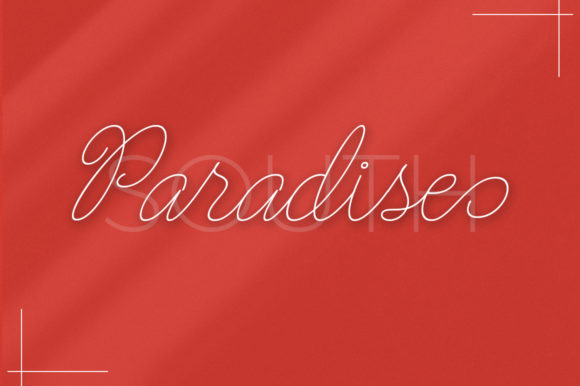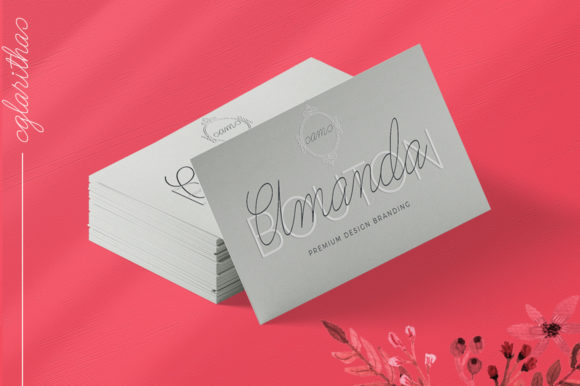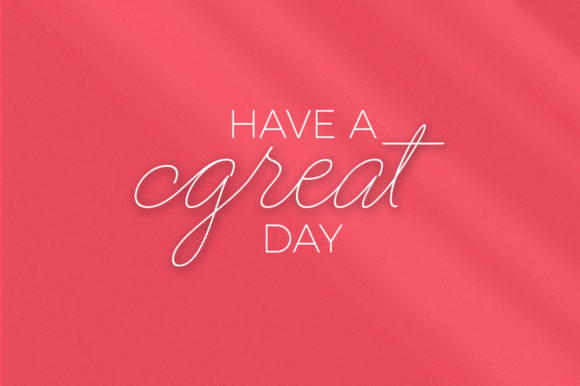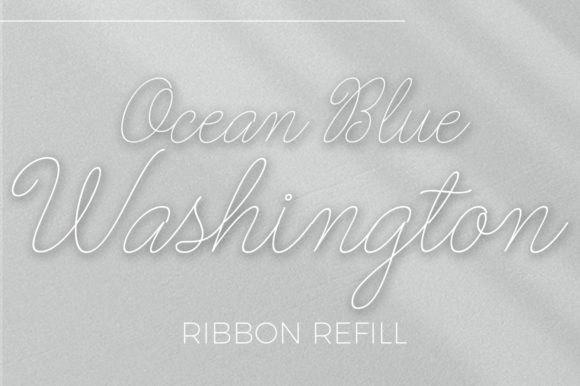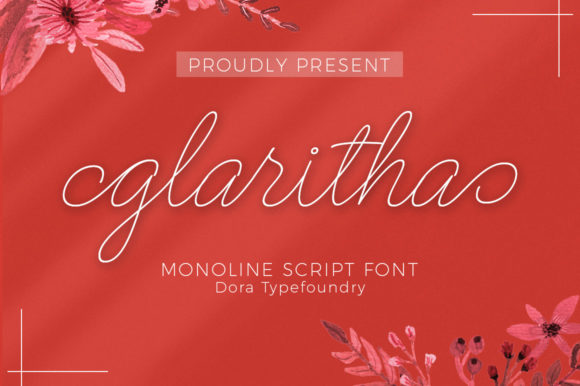
Glaritha Font: Elevate Your Designs with a Timeless Handwritten Touch
In the world of typography, few fonts manage to capture the essence of elegance and sophistication as effortlessly as Glaritha. This incredibly distinct, delicate, and timeless handwritten font has been making waves in the design community, and for good reason. Glaritha’s unique charm and versatility make it an ideal choice for a wide range of design projects, from wedding invitations and thank you cards to quotes, greeting cards, logos, business cards, and beyond.
The Beauty of Glaritha
Glaritha’s beauty lies in its delicate, handcrafted aesthetic. Each letter is carefully crafted to exude a sense of refinement and poise, making it perfect for designs that require a touch of sophistication. The font’s timeless quality ensures that it won’t go out of style anytime soon, allowing you to create designs that will remain relevant for years to come.
Wedding invitations, save-the-date cards, and thank you notes are just a few examples of where Glaritha truly shines. Its elegant, cursive script adds a romantic touch to any wedding or event design, setting the tone for a memorable and special occasion. Whether you’re a designer or a crafty DIY bride, Glaritha is sure to make your wedding stationery stand out.
Versatility Beyond Wedding Designs
While Glaritha is undoubtedly perfect for wedding and event designs, its versatility extends far beyond. This font can be used for a wide range of projects, including:
• Quotes and typographic prints
• Greeting cards and postcards
• Logos and branding materials
• Business cards and stationery
• Packaging and product labels
Why Designers and Crafters Love Glaritha
So, what makes Glaritha a favorite among designers and crafters? Here are just a few reasons:
• Ease of use: Glaritha is incredibly easy to read and work with, making it perfect for designs that require a personal touch.
• Flexibility: This font can be used for both digital and print projects, ensuring that your designs look great across various mediums.
• Uniqueness: Glaritha’s distinctive style sets it apart from more traditional fonts, allowing you to create designs that stand out from the crowd.
Tips for Using Glaritha in Your Designs
To make the most of Glaritha, here are a few tips to keep in mind:
• Pair with complementary fonts: Combine Glaritha with clean, modern fonts to create a striking contrast.
• Experiment with colors: Glaritha looks great in a range of colors, from soft pastels to rich jewel tones.
• Play with textures: Add a touch of whimsy to your designs by incorporating textures and patterns.
Glaritha is a truly unique and versatile font that can elevate any design project. Its timeless, handwritten aesthetic makes it perfect for a wide range of applications, from wedding invitations and event designs to logos, business cards, and beyond. Whether you’re a designer or a crafter, Glaritha is sure to become a favorite in your toolkit.